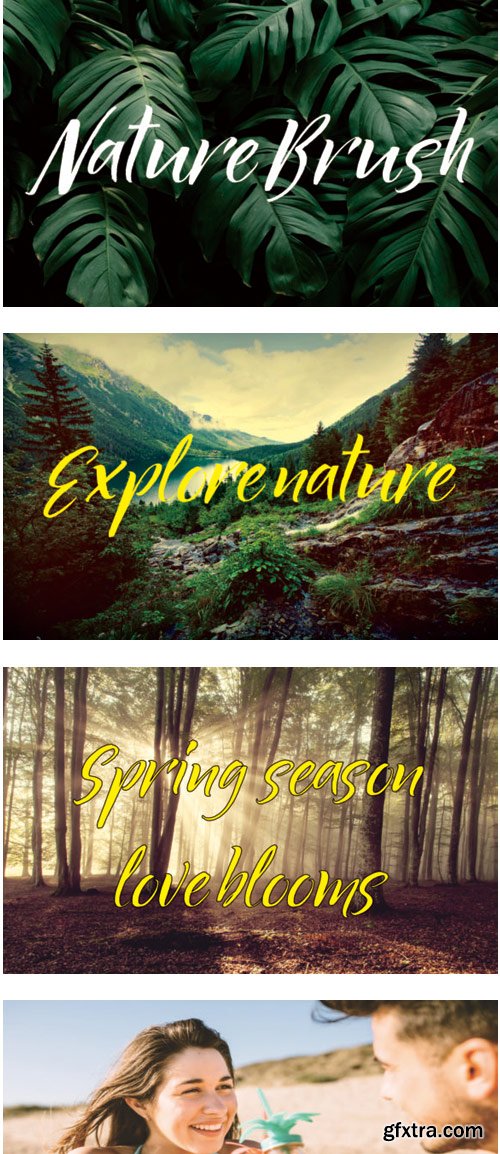
Nature Brush Font
Nature Brush is a fun and dynamic font with a fresh feel. Get inspired by it and use it for any design projects that needs a unique twist.